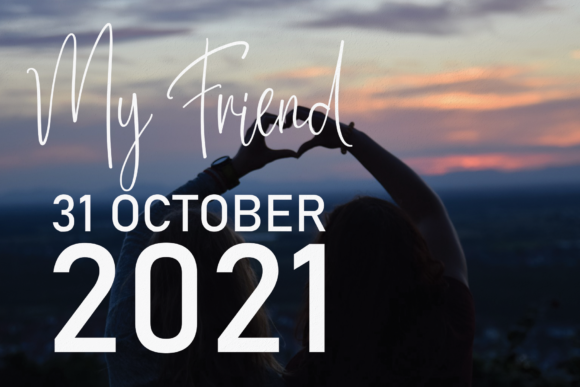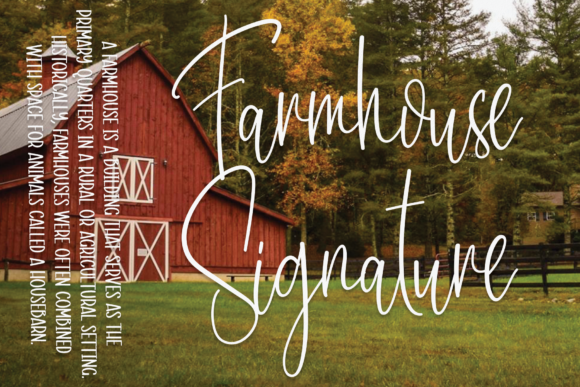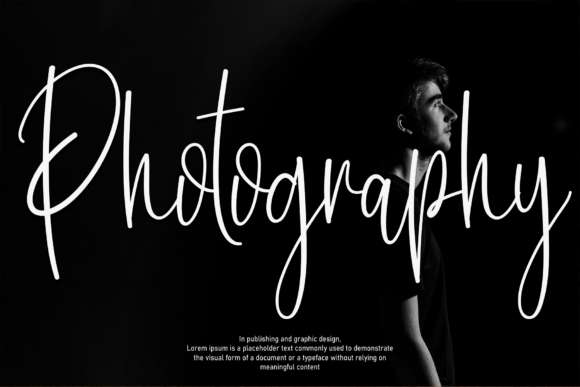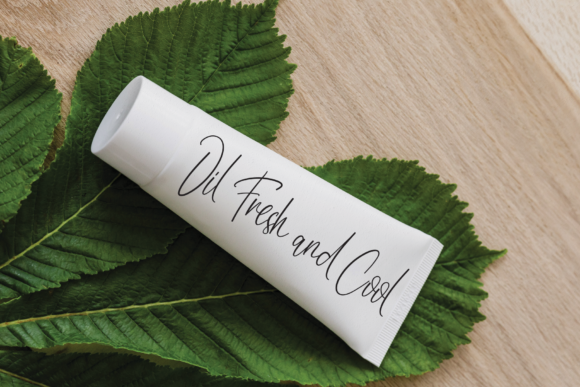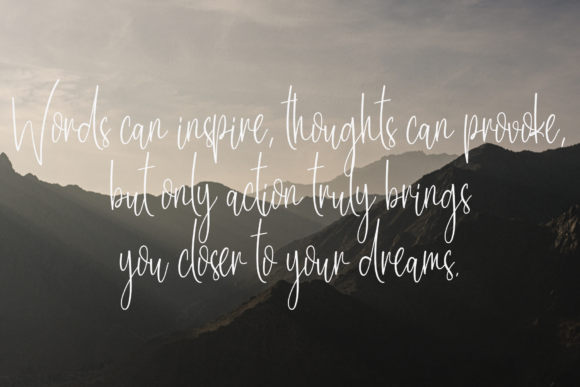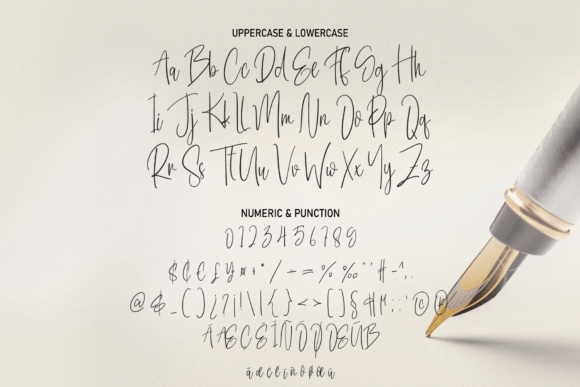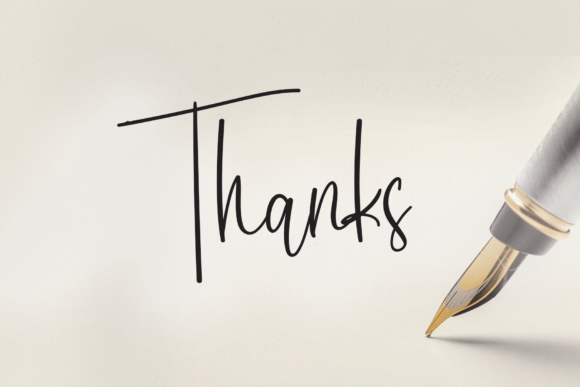
Handwriten Font
Handwriten is a stylish and delicate script font that brings a touch of sophistication and elegance to a wide range of design projects. Its graceful and flowing letterforms make it a versatile choice for various applications, including book texts, documentation, business reports, business correspondence, magazines, newspapers, posters, advertisements, multimedia, and corporate design.
Imagine using Handwriten for book texts. Its fashionable and delicate script style could enhance the reading experience, adding a sense of elegance and charm to the printed page. Whether it’s a novel, a poetry collection, or an art book, Handwriten’s unique and graceful appearance can create a visual identity that resonates with the content and captivates readers.
In the realm of business documents, Handwriten can lend a professional yet stylish touch to reports and correspondence. Its delicate script adds a personal and refined element to important communications, making them more engaging and memorable. Whether it’s a business proposal, a memo, or a presentation, Handwriten’s elegant appearance can leave a lasting impression on clients, partners, and colleagues.
Magazines and newspapers can benefit from Handwriten’s distinctive style as well. As a headline font, it can add a sense of sophistication and visual interest to cover stories, feature articles, and editorial layouts. Its fashionable and delicate script can help create a cohesive and visually appealing design that draws readers in and encourages them to explore the content.
For advertising and promotional materials, Handwriten can add a touch of elegance and charm to posters, banners, and multimedia campaigns. Its delicate and stylish appearance can help convey the brand’s message in a visually appealing way, making the design stand out and leaving a positive impression on the target audience.
Handwriten’s versatility extends to corporate design, where it can be used in logos, branding materials, and stationery. Its fashionable and delicate script adds a refined and timeless quality to the brand’s visual identity, making it memorable and recognizable. From business cards to letterheads, Handwriten’s elegant appearance can elevate the overall aesthetic of corporate communication.
In summary, Handwriten is a fashionable and delicate script font that adds a sense of sophistication and elegance to various design projects. Its versatility makes it suitable for book texts, documentation, business reports, business correspondence, magazines, newspapers, posters, advertisements, multimedia, and corporate design. By incorporating Handwriten into your creative work, you can enhance the visual appeal of your designs and create a lasting impact on your audience.